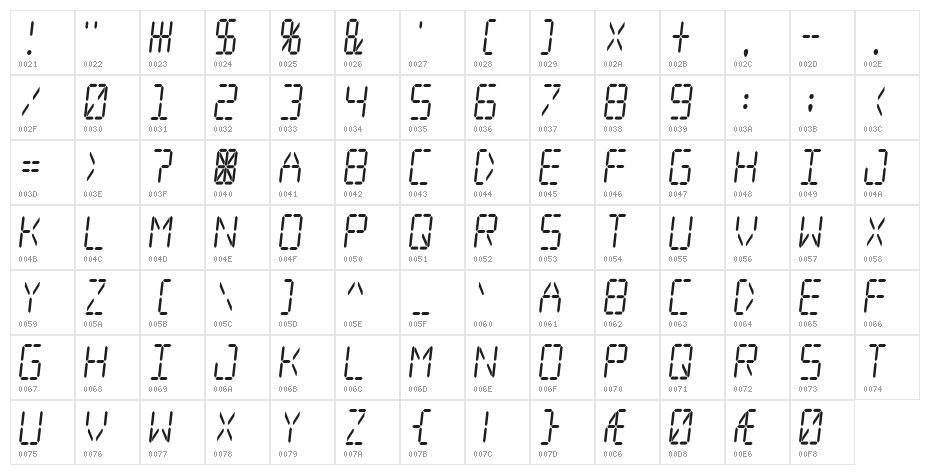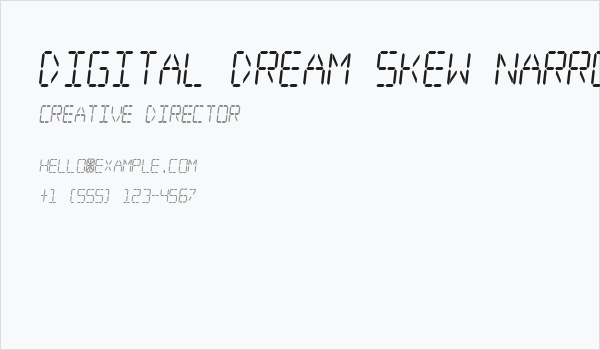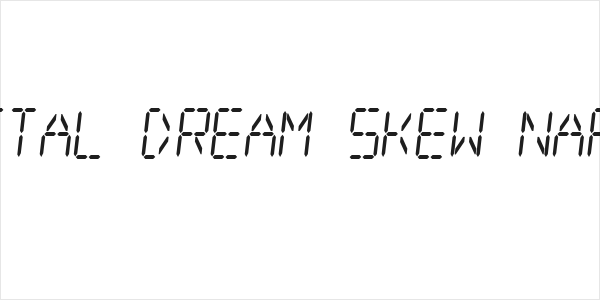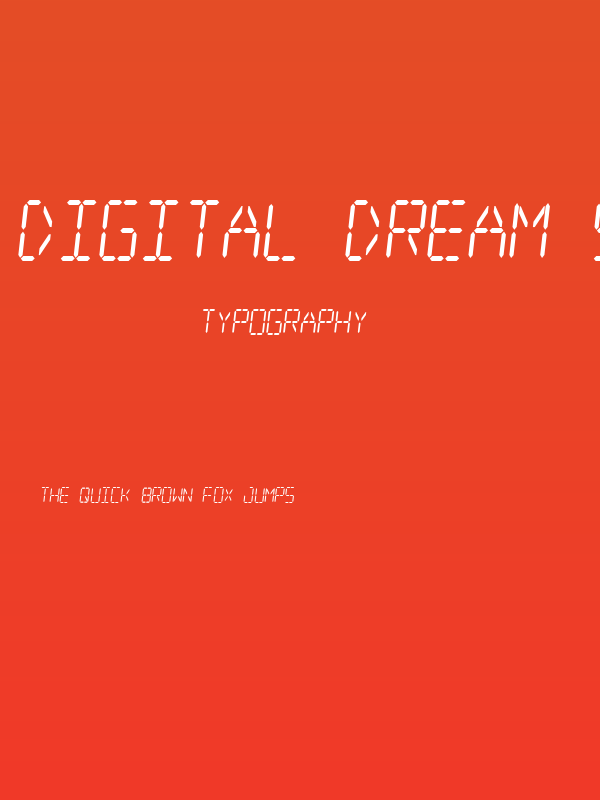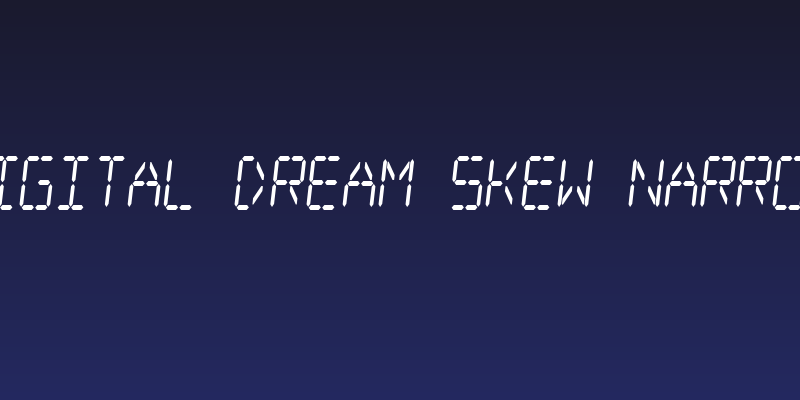
Digital dream Skew Narrow Font
Digital dream Skew Narrow Description
This font features a digital, futuristic style reminiscent of LED displays and digital clocks. The characters are composed of segmented lines, creating a geometric and technical appearance. Each letter and number is constructed with a consistent angular design, giving it a cohesive and uniform look. The font is skewed, adding a dynamic and modern touch, while the narrow width enhances its sleek and compact form. This style is ideal for conveying a sense of technology and innovation.
| Use Case | Logos, Digital displays, Tech interfaces |
| Proposed Projects | Perfect for digital interfaces, tech branding, futuristic posters, and electronic device displays. |